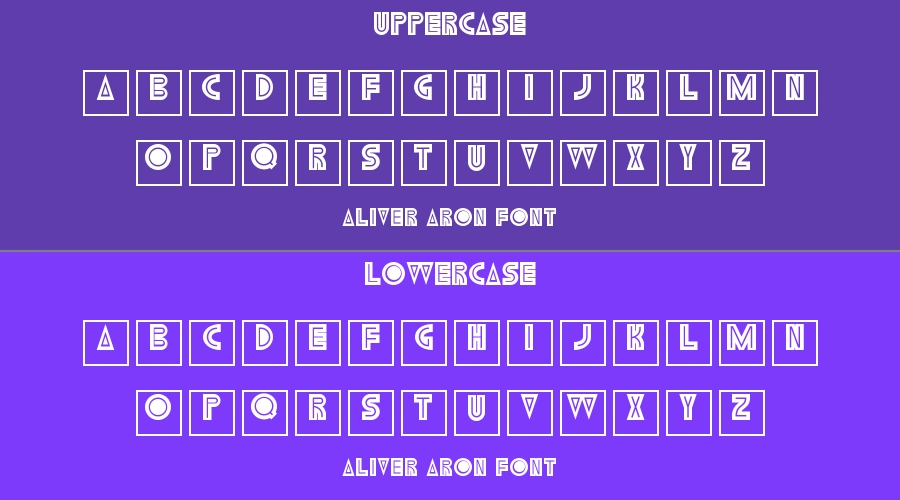
About Aliver Aron Font
Aliver Aron Font stands out for its distinctive combination of strong contrast and clarity. Ideal for medical texts, it provides the reliability and brand differentiation that professional projects demand. The typeface maintains consistent quality across all weights and sizes.
Key features include refined elegant proportions and practical expert sets, enhancing typographic expression. In traditional announcements applications, Aliver Aron Font demonstrates exceptional archive stability. The ear formation and design heritage contribute to its distinctive character and professional appeal.